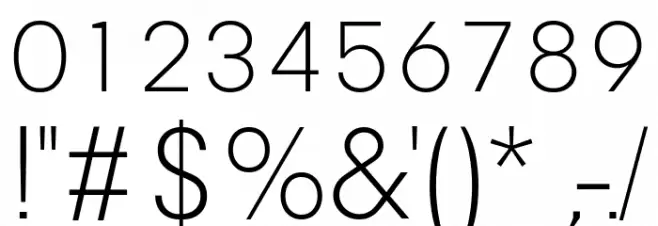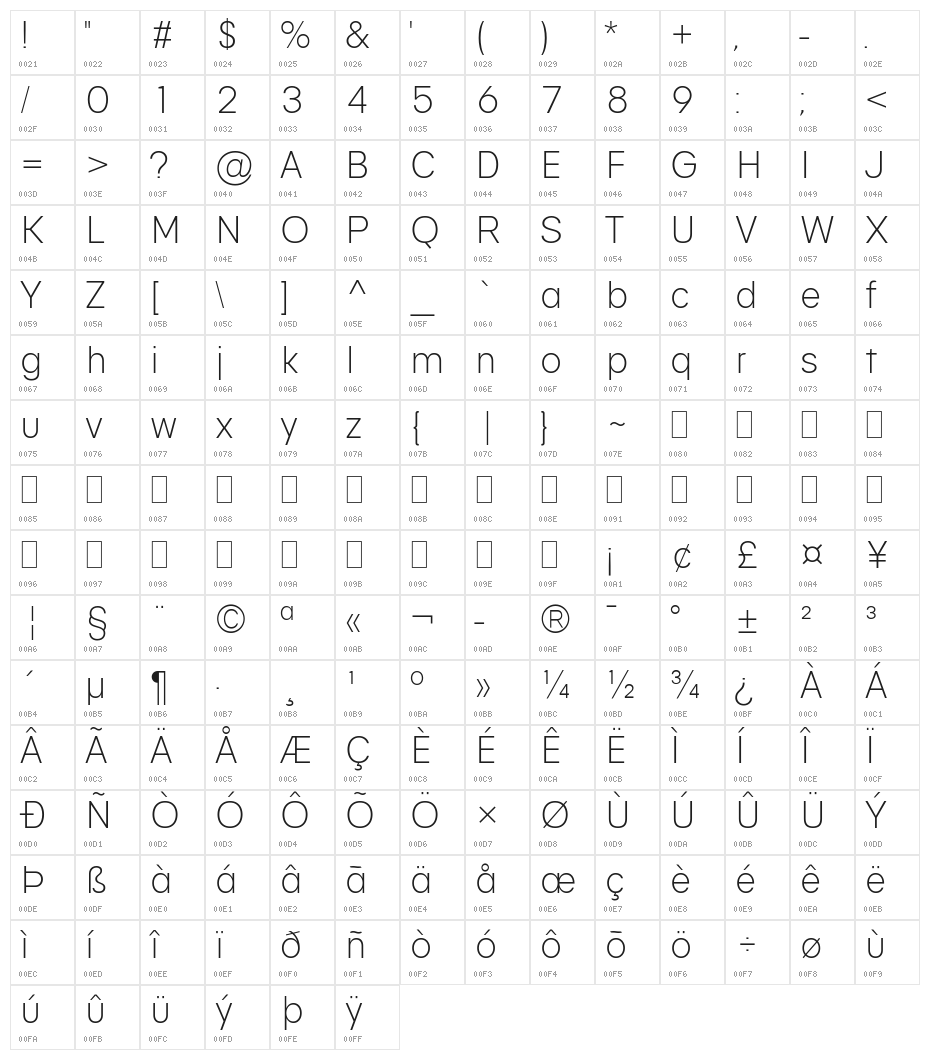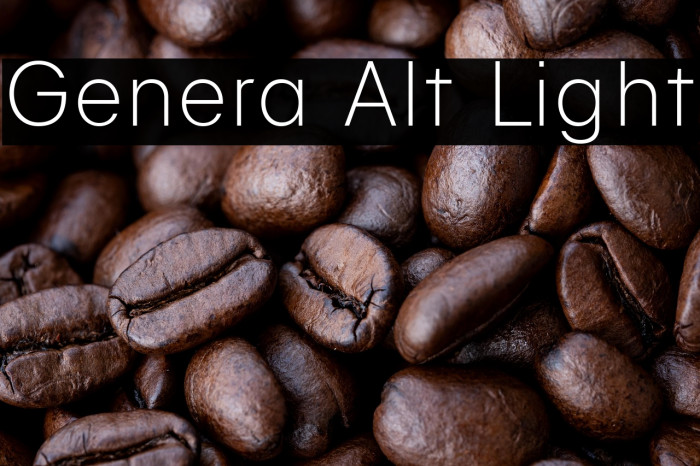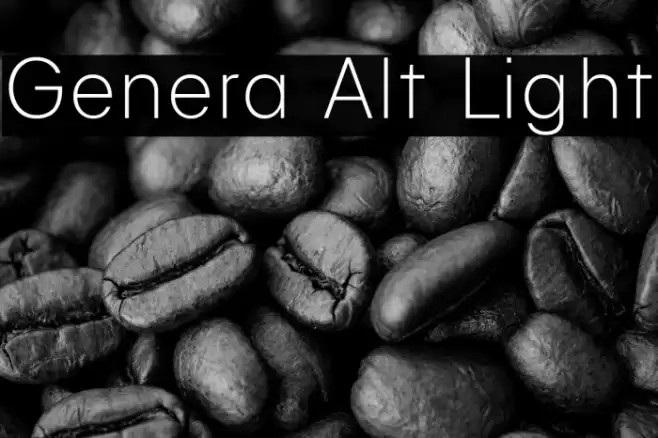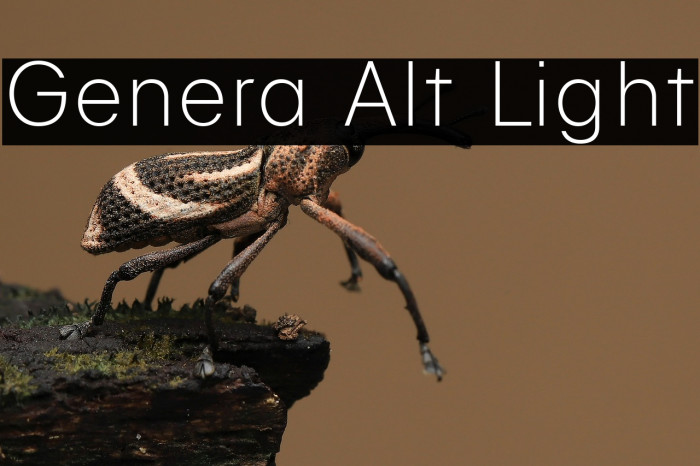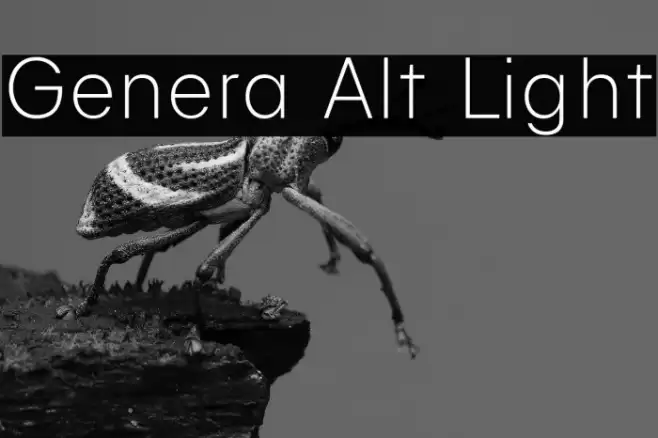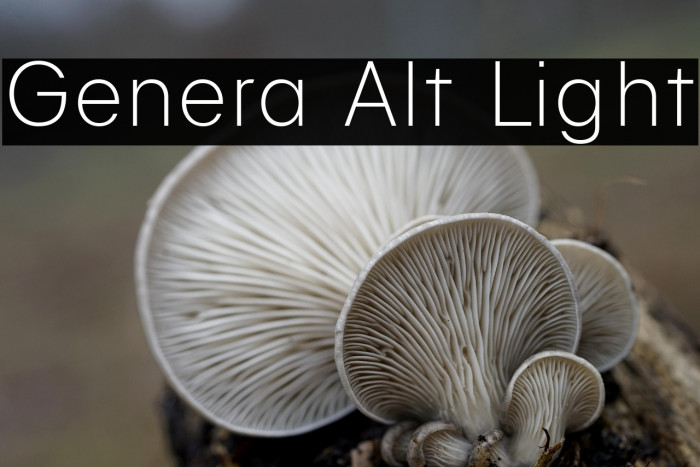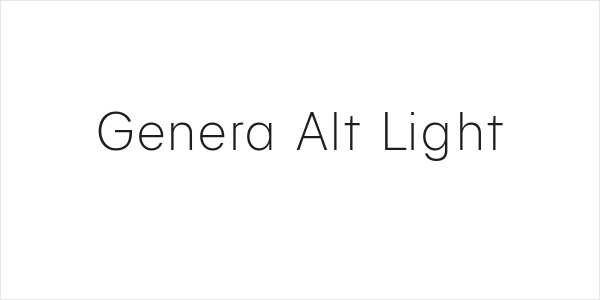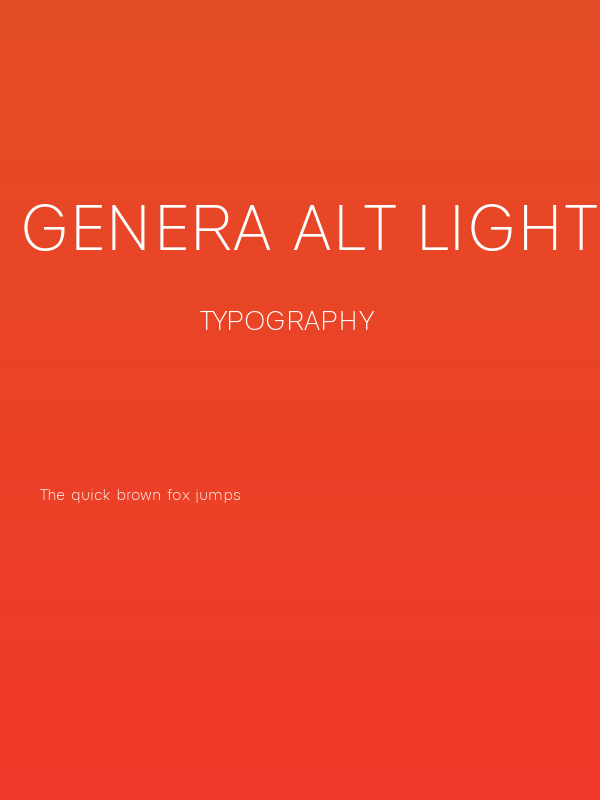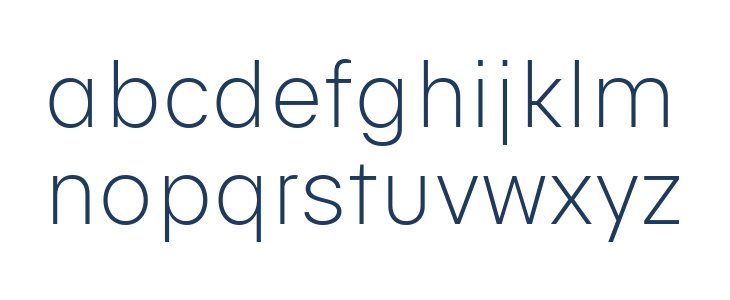
Genera Alt Light Font
Genera Alt Light Description
This font features a clean and modern sans-serif design, characterized by its light weight and minimalistic aesthetic. The characters are evenly spaced with a consistent stroke width, providing a harmonious and uncluttered appearance. The uppercase letters are tall and slightly condensed, while the lowercase letters maintain a uniform height, contributing to the font's readability. The numerals are clear and straightforward, matching the overall simplicity of the design. Special characters are well-integrated, maintaining the font's sleek and contemporary style.